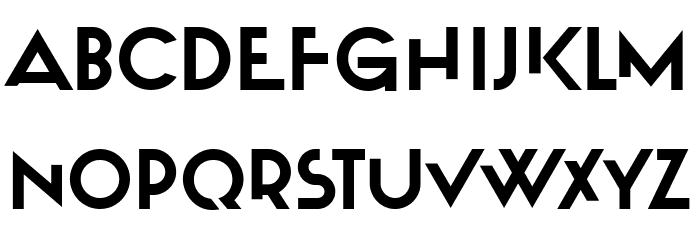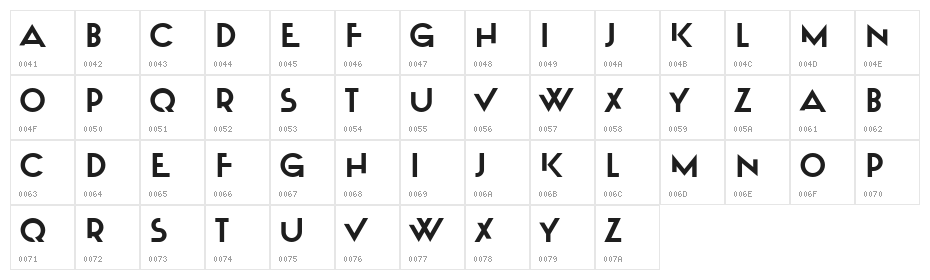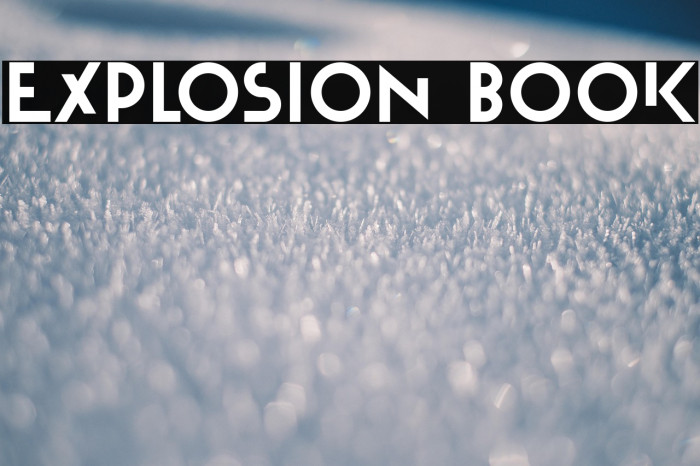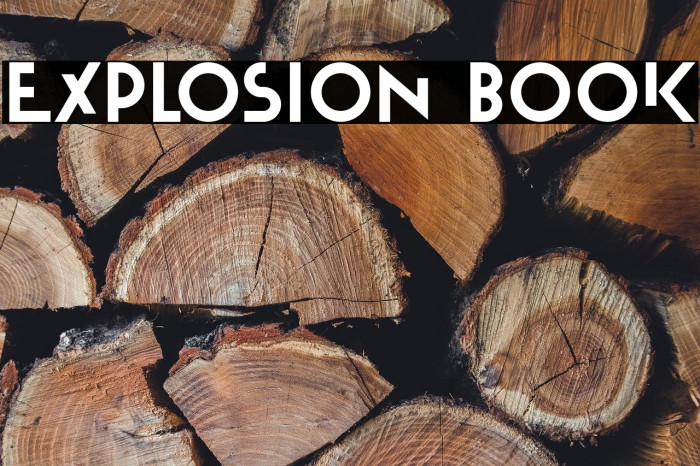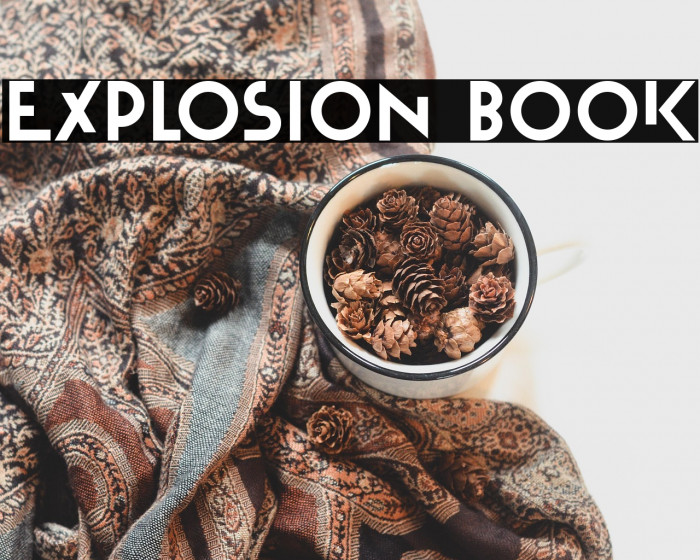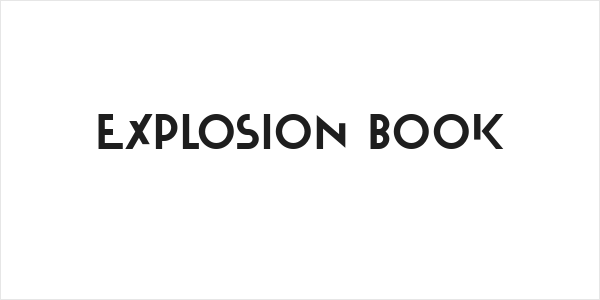
Explosion Book Font
Explosion Book Description
This font features a bold and geometric design, characterized by sharp angles and clean lines. The uppercase letters are uniform in height, creating a cohesive and structured appearance. The strokes are consistent in thickness, providing a strong and assertive presence. The font's modern aesthetic is enhanced by its minimalistic style, making it suitable for contemporary design projects. The characters are evenly spaced, ensuring readability and balance across different applications. Its distinct and striking look makes it ideal for attention-grabbing headlines and branding materials.